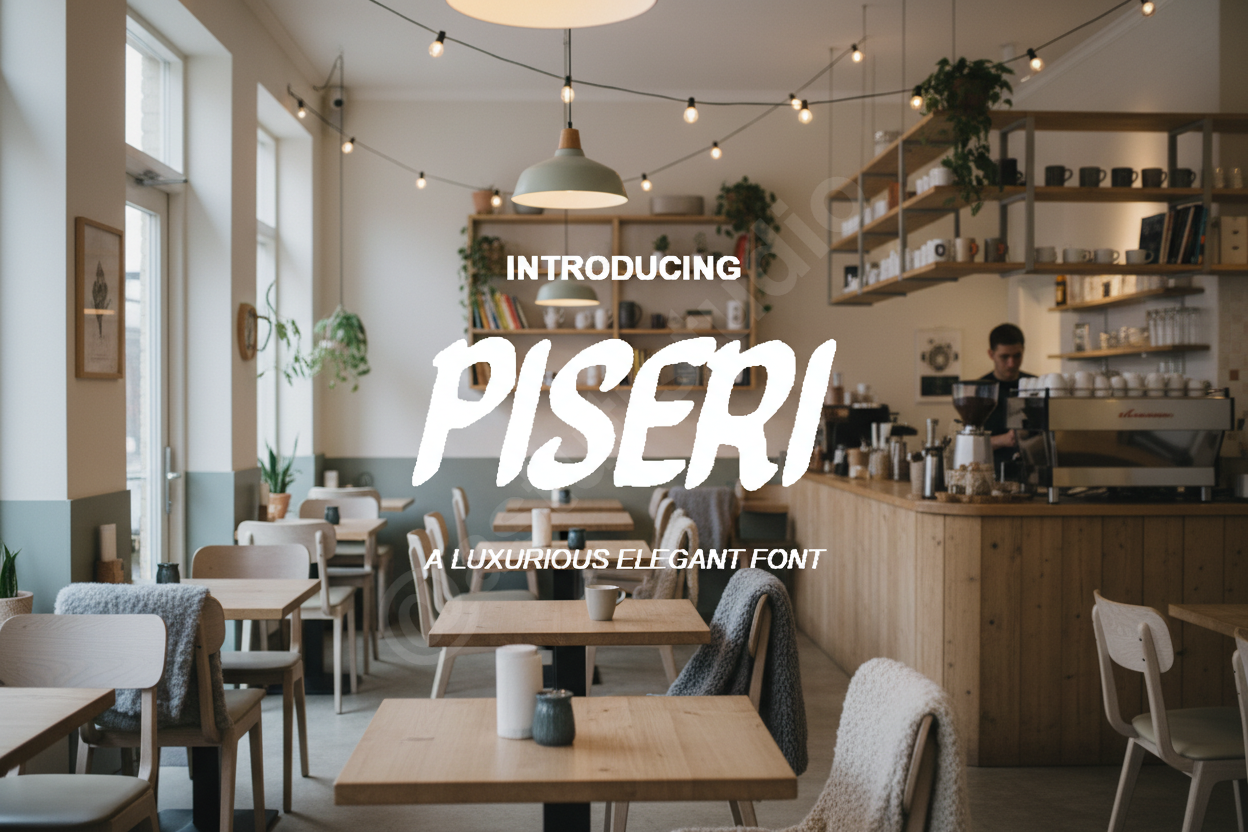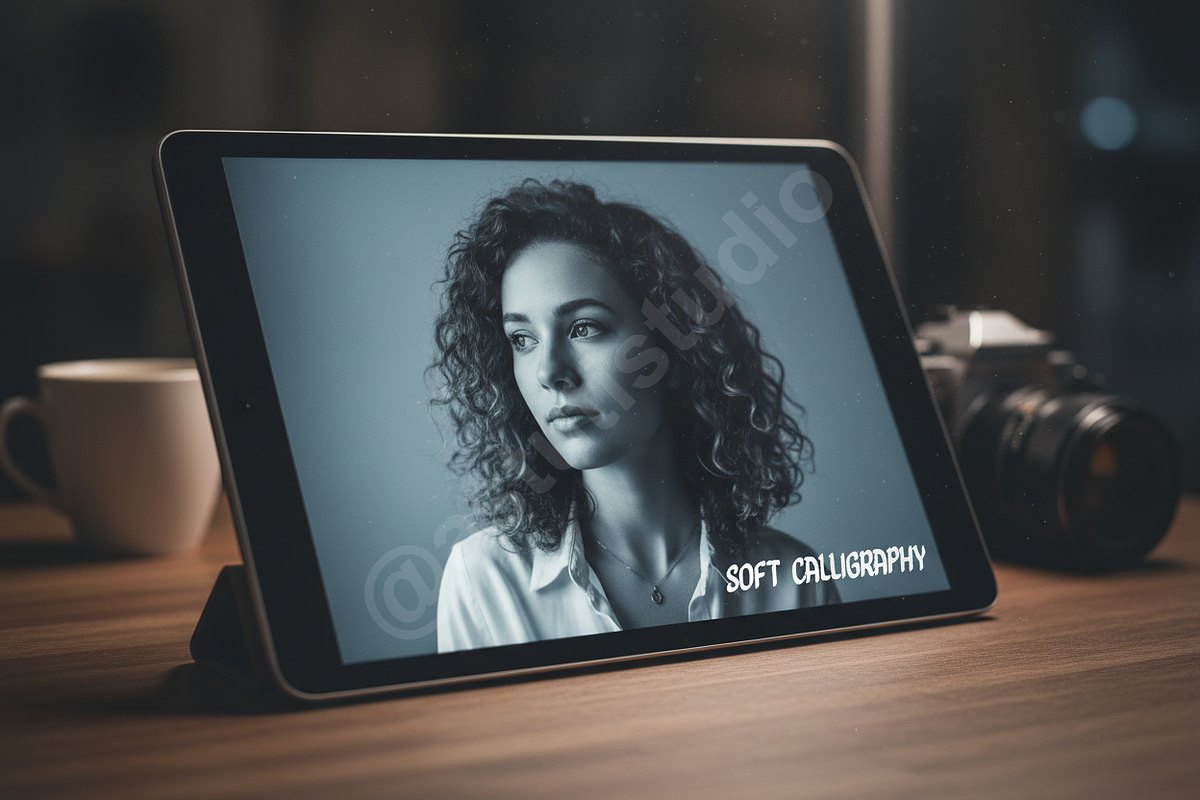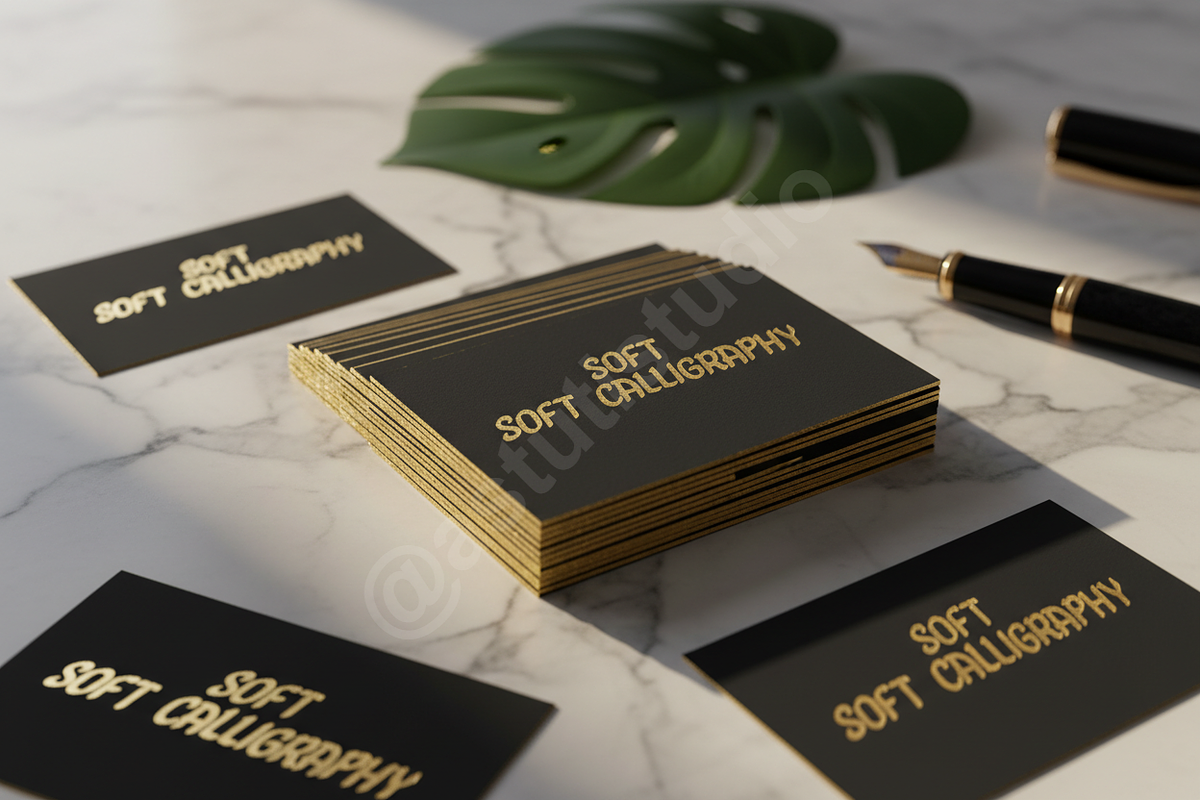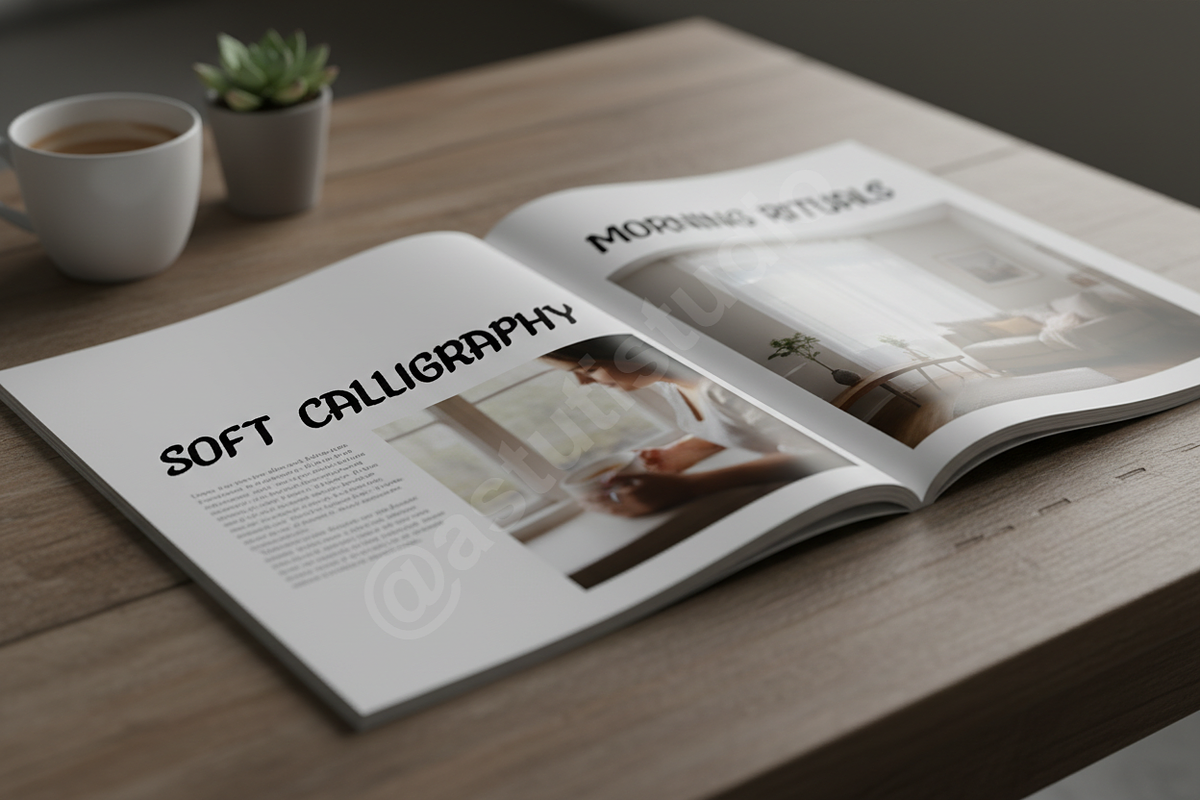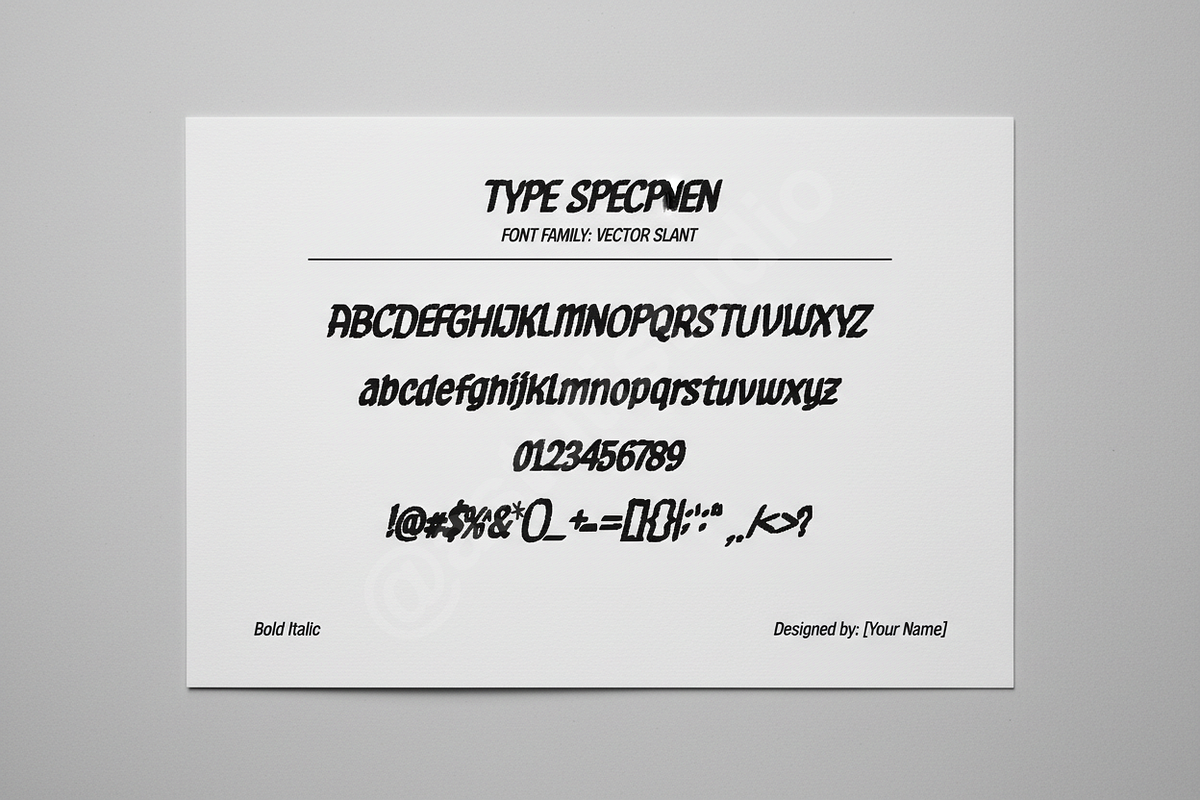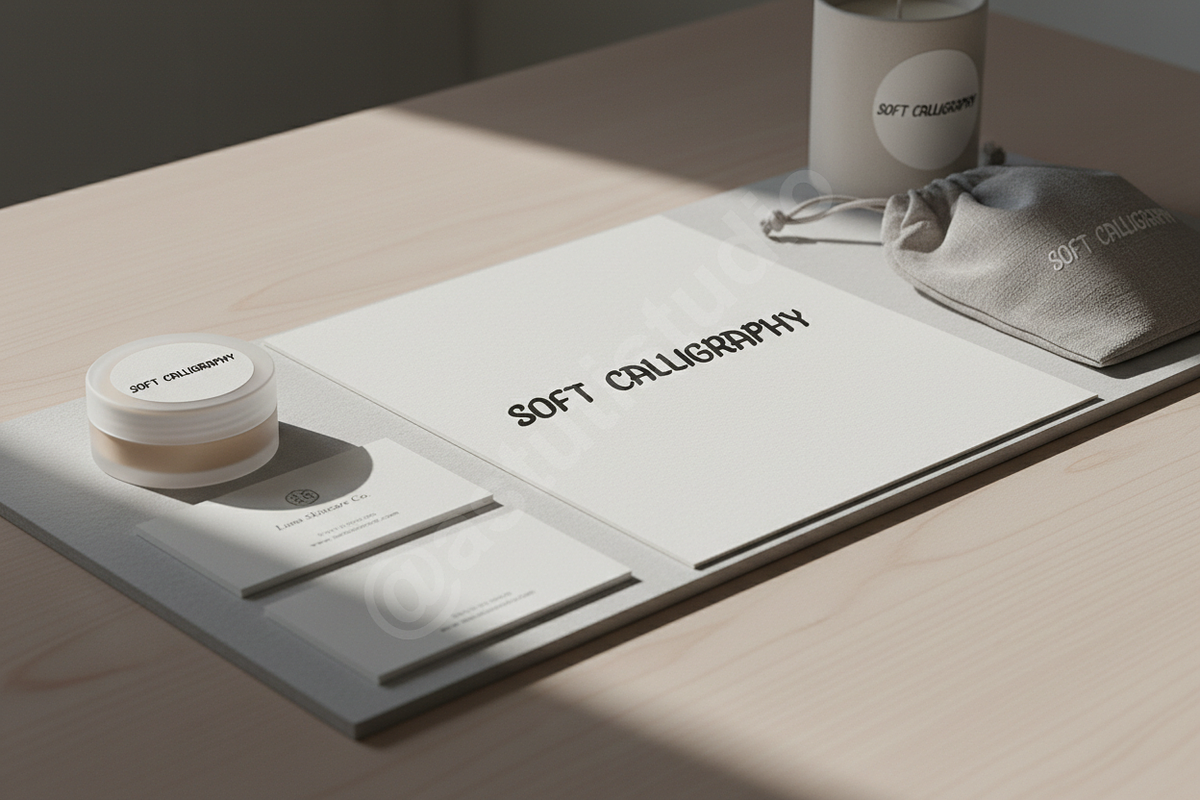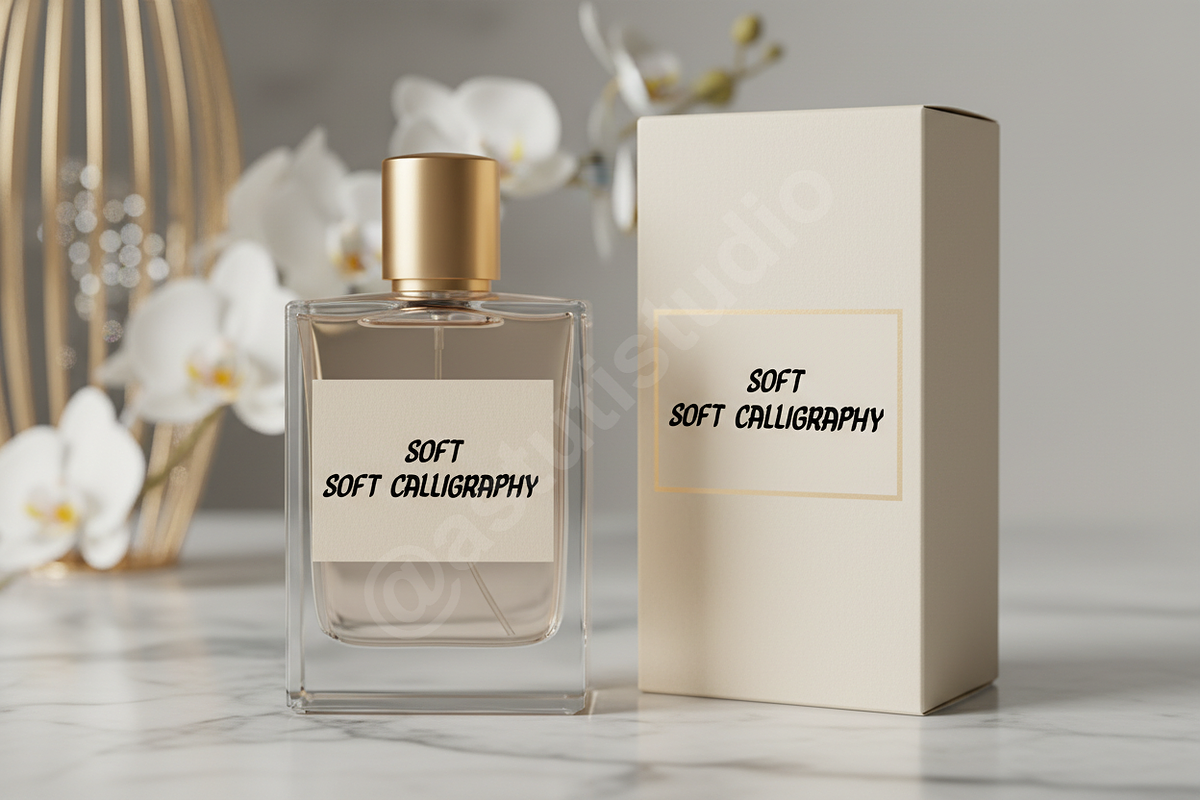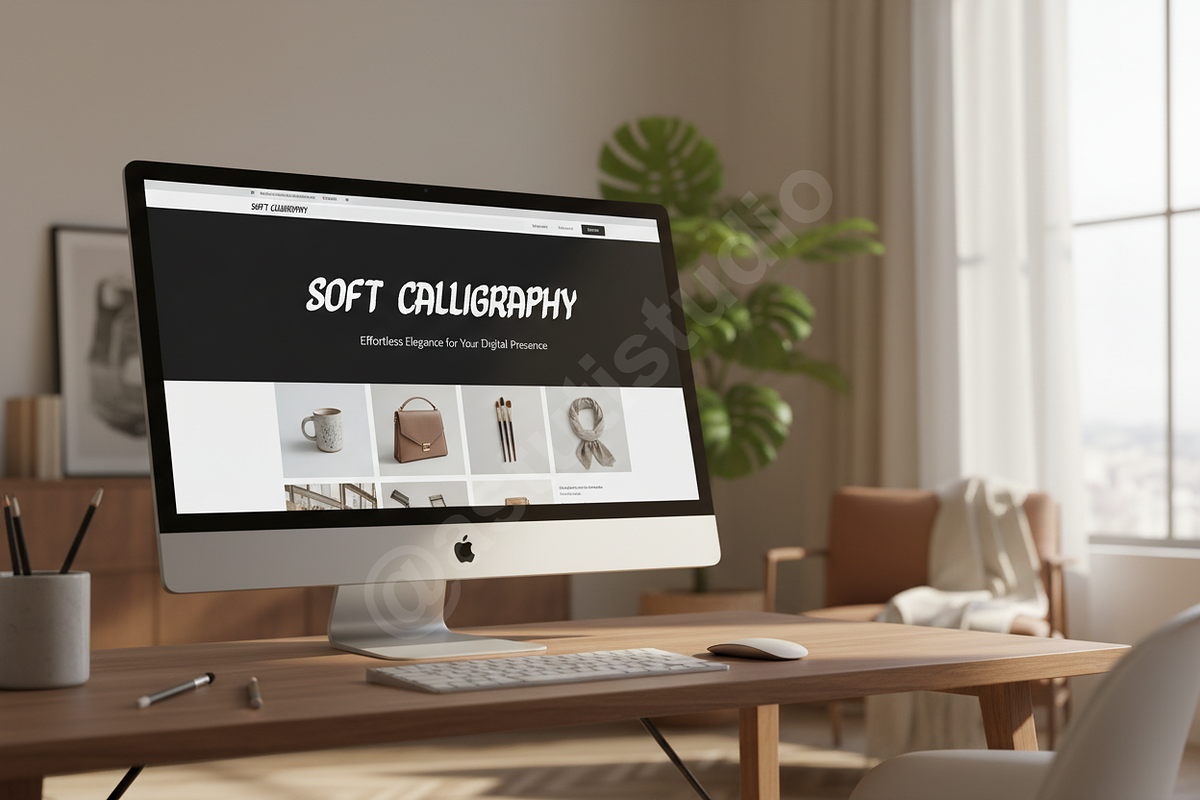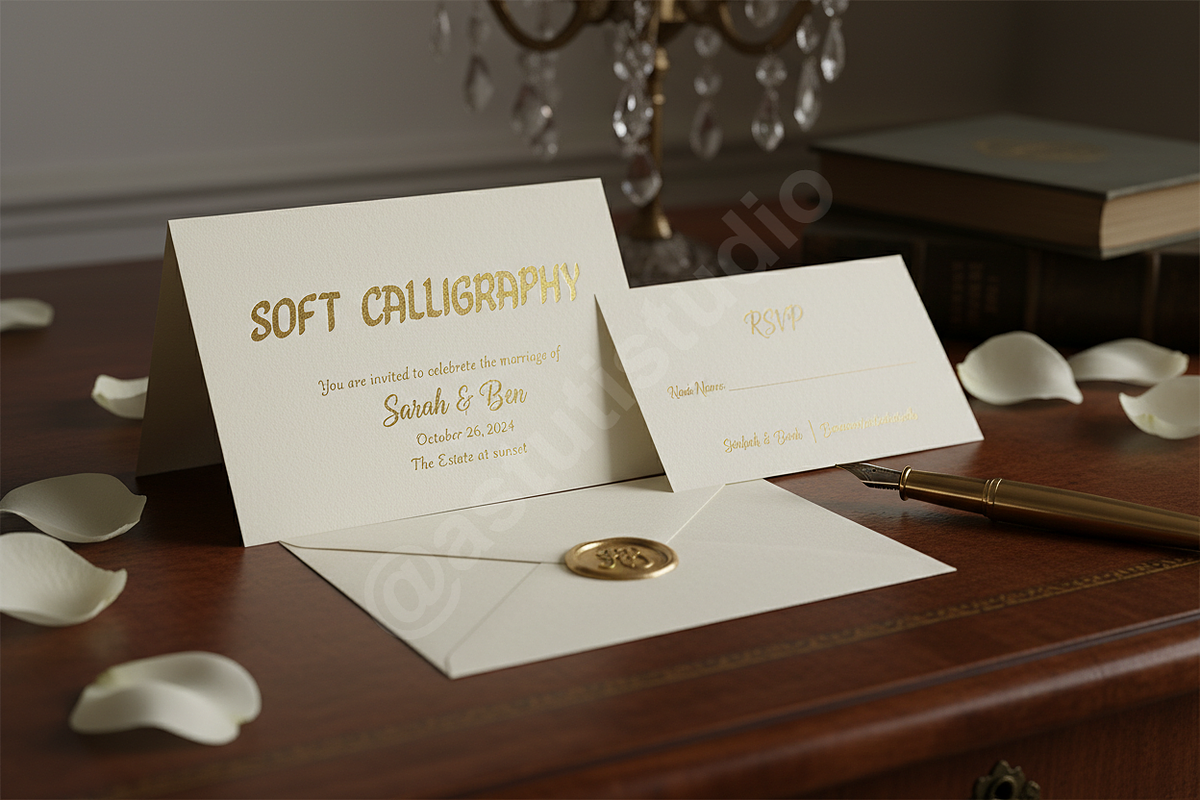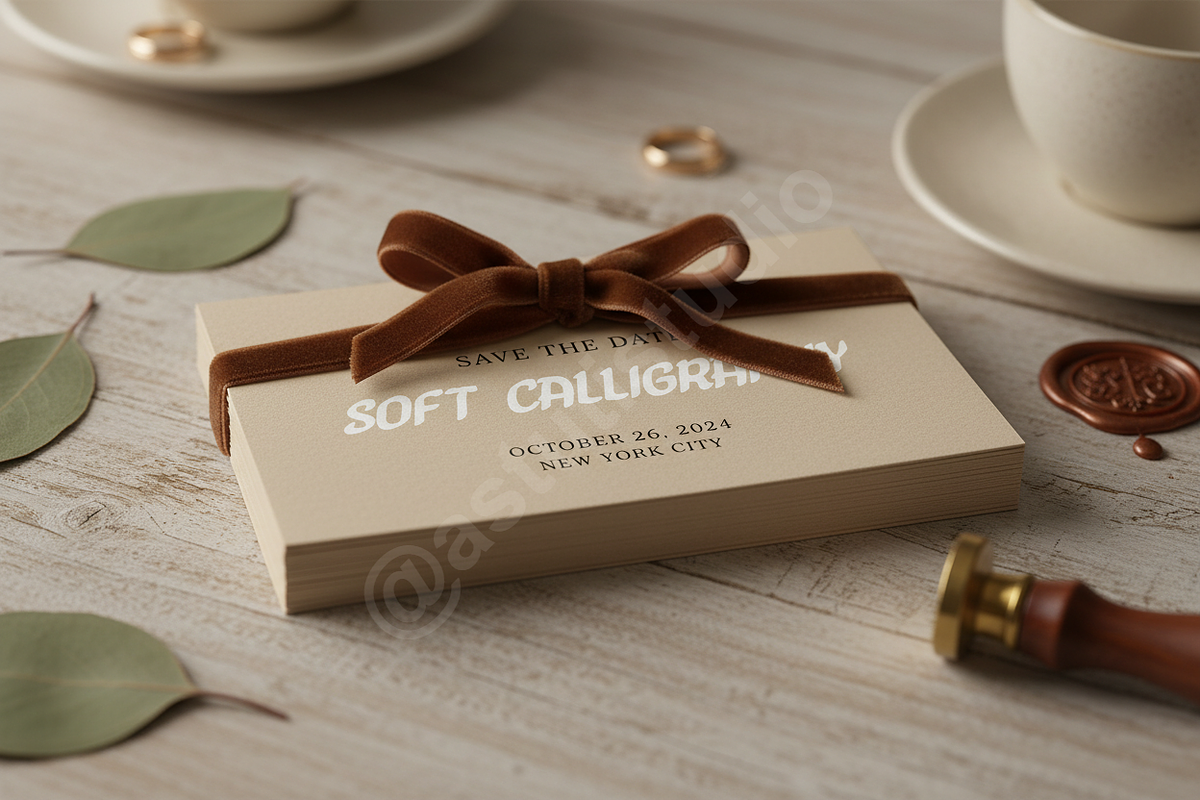
Piseri | Luxury Serif Typeface
INTRODUCTION Piseri is a high-end serif typeface meticulously crafted for elegance and timelessness. Designed with refined curves and sharp terminals, Piseri embodies the sophistication of modern luxury, making it an essential tool for high-tier branding, editorial excellence, and elevated social media presence.
- Elegant high-contrast serif design
- Comprehensive multilingual support
- Large set of unique ligatures and alternates
- Precision kerning for professional layouts
- Versatile weights optimized for both headlines and body text